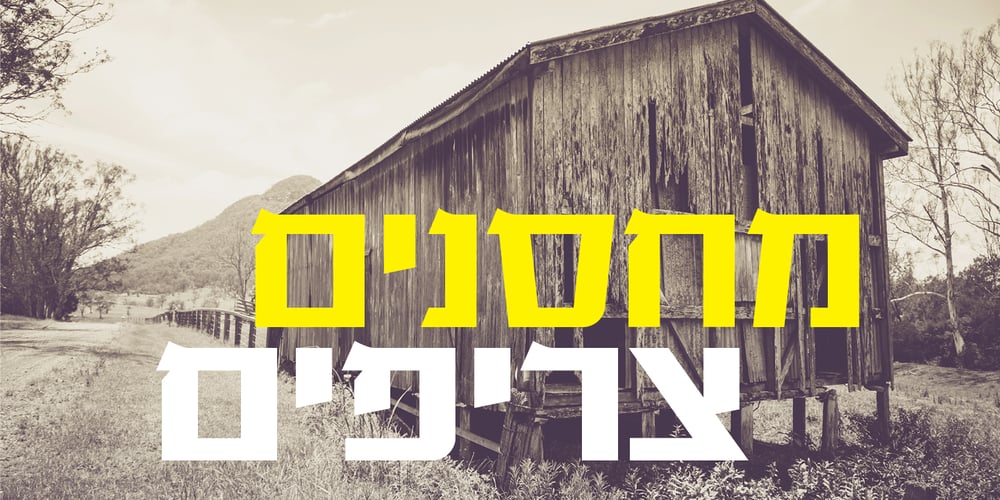
Vetrena MF Font Family was designed by Zvika Rosenberg and published by Masterfont. Vetrena MF contains 5 styles and family package options. A square san serif font family for short texts and headlines. Inspired by old hand-painted signs in Tel Aviv.